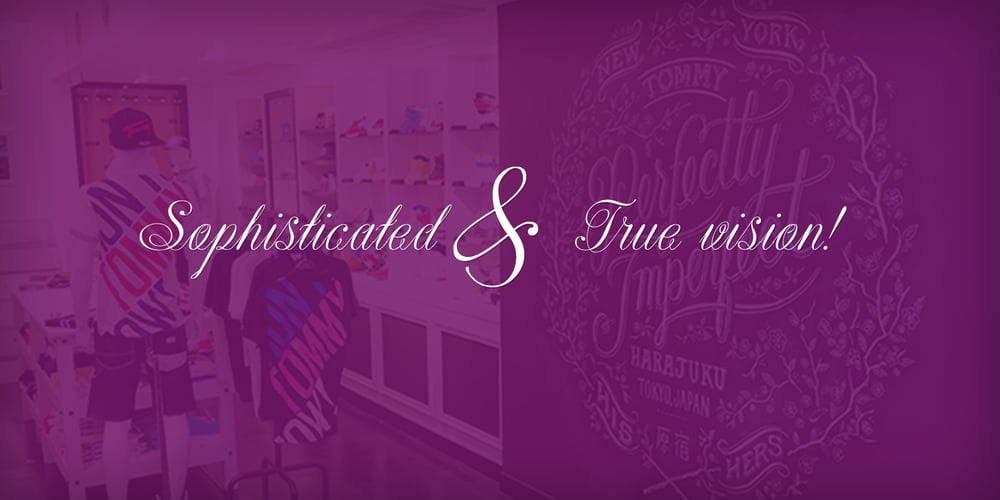
Astrum
Astrum font
Astrum Font Family was designed by Dusko Joksimovic and published by Fontex. Astrum contains 12 styles and family package options. Astrum is a very decorative script font using elegant caligraphic handwritten letters that are all mutually interconnected, creating a unique look & feel of a personalized human handwritting. Its clean and prefined lines makes Astrum very appealing and modern, although being very classical in its core essence. The idea for the creation of this font had originally came up from the need to create a beautiful design for Weddings, wedding occasions, etc., but none of the existing fonts were satisfactory – so I decided to create a new and unique typeface to fill this need. Letters and other characters are recognizeable by prefined ornaments, incorporated in a very subtle way. Whitespace between capital letters, lower-case letters, numbers and other characters are done in a way to minimize the need for kerning. The font Astrum, besides being a celebration of class and exclusivity, is a very luxurious and elegant handwritten font perfectly suited for Wedding cards. The character set for this font contains all western, central-european latin and cyrillic characters.